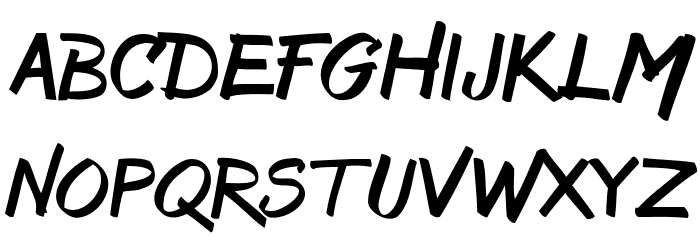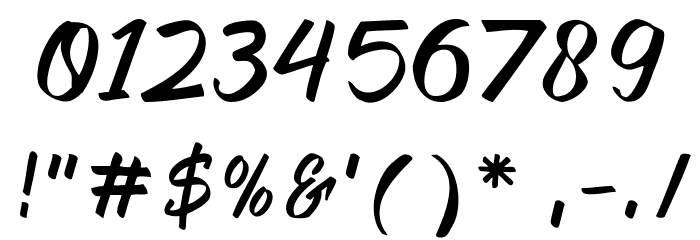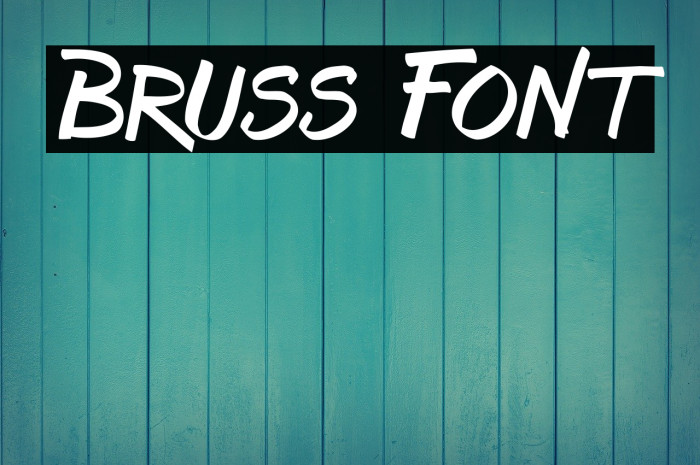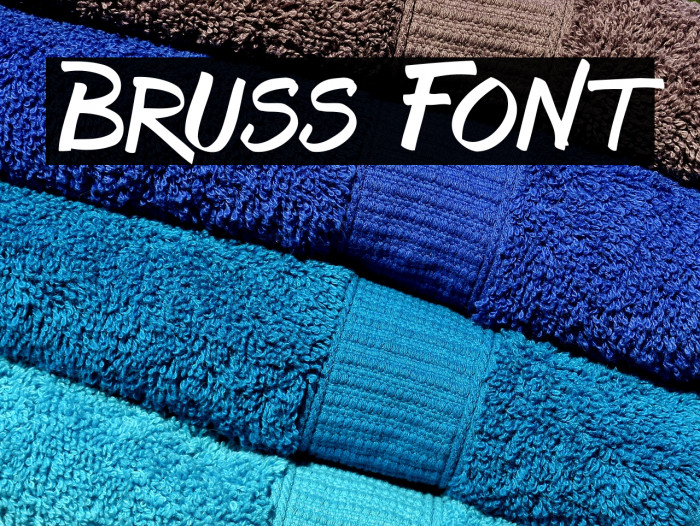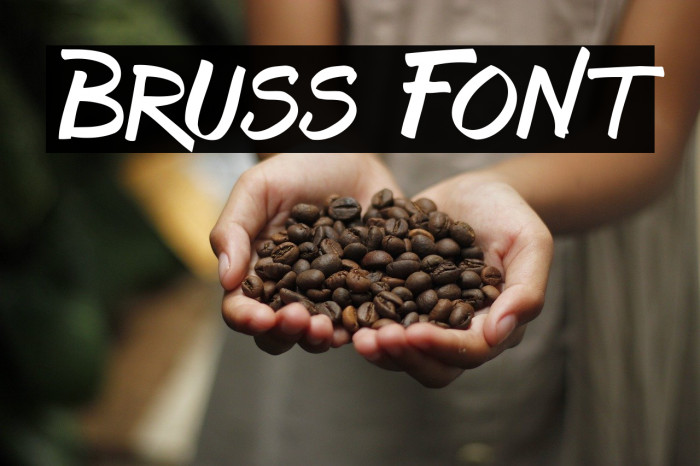
Bruss Font
This font features a bold and dynamic handwritten style, characterized by its slanted and fluid letterforms. The uppercase and lowercase letters exhibit a consistent stroke width, giving the font a cohesive and energetic appearance. The numerals and special characters maintain the same lively and informal style, making it suitable for projects that require a personal touch. The overall design is playful yet legible, with a slight tilt that adds movement and personality to the text.
A bold, dynamic handwritten font with slanted, fluid letterforms.
- Proposed Projects: Ideal for greeting cards, posters, branding materials, and social media graphics that require a personal and energetic touch.
- Overall Style: Playful, Energetic
- Use Case: Headlines, Logos, Informal Text